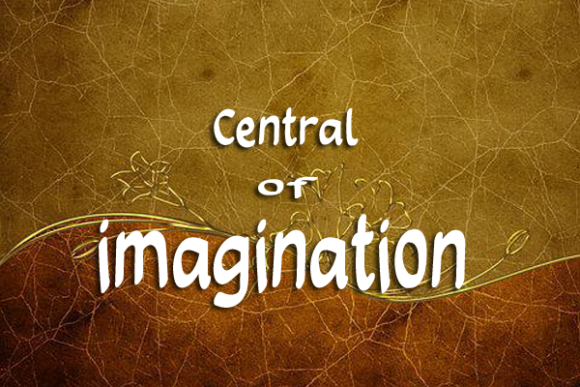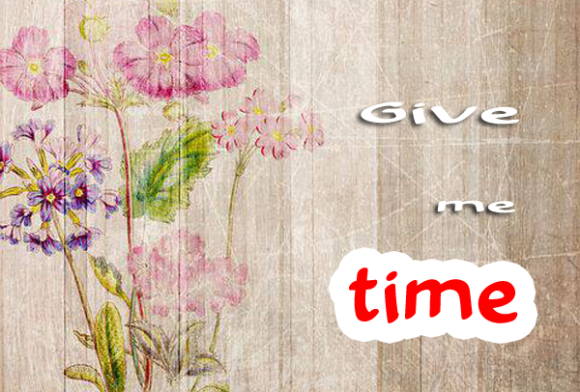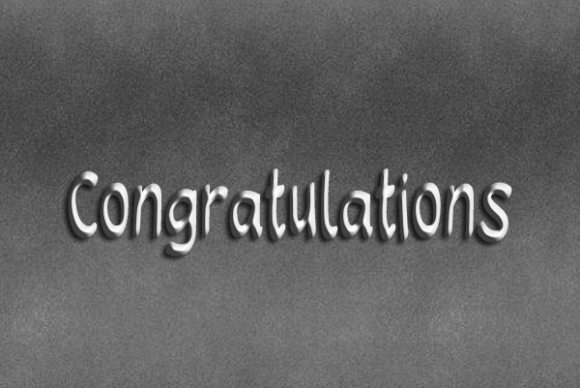
Casanova Font: Elevate Your Designs with Elegance and Fun
Are you on the lookout for a font that combines elegance with a playful twist? Look no further than the Casanova Font! This display font is designed to bring a touch of sophistication and whimsy to your creative projects. With its well-rounded characters and neat style, Casanova is the perfect choice for designers and crafters seeking to make their ideas come alive.
The Characteristics of Casanova Font
Casanova Font boasts a unique blend of elegance and playfulness, making it an excellent addition to any designer’s toolkit. Some of its key features include:
- Well-rounded characters: Each letter in the Casanova Font is carefully crafted with smooth, rounded edges, giving it a friendly and approachable feel.
- Neat style: The font’s neat and clean lines ensure that it remains highly legible, even at larger sizes, making it perfect for headings and titles.
- Elegant and fun: Casanova strikes the perfect balance between sophistication and playfulness, allowing designers to add a touch of personality to their work.
Uses for Casanova Font
The versatility of Casanova Font makes it suitable for a wide range of creative projects. Here are some ideas to get you started:
- Logos and branding: Use Casanova to create a memorable and stylish logo that reflects your brand’s personality.
- Posters and flyers: Add a touch of elegance and fun to your promotional materials with Casanova’s unique charm.
- Wedding and event invitations: Make your special day even more memorable with beautifully designed invitations featuring the Casanova Font.
- Social media graphics: Stand out on social media with eye-catching graphics and headings created using Casanova.
Tips for Using Casanova Font Effectively
To get the most out of Casanova Font, keep the following tips in mind:
- Experiment with sizes: Casanova looks great at a range of sizes, from large headings to smaller body text. Don’t be afraid to experiment and find the perfect size for your project.
- Pair it with other fonts: Combine Casanova with complementary fonts to create visually appealing contrast and add depth to your design.
- Play with colors: Casanova Font looks great in a variety of colors. Try experimenting with different hues and shades to find the perfect match for your design.
Why Choose Casanova Font?
With so many fonts to choose from, why should you opt for Casanova? Here are just a few reasons:
- Unique style: Casanova’s distinctive blend of elegance and playfulness sets it apart from other fonts on the market.
- Highly versatile: Whether you’re working on a logo, poster, or social media graphic, Casanova Font is the perfect choice.
In conclusion, Casanova Font is a fun and elegant display font that’s perfect for designers and crafters looking to add a touch of sophistication and whimsy to their creative projects. With its well-rounded characters, neat style, and highly versatile design, Casanova is sure to become a staple in your font collection. So why wait? Download Casanova Font today and watch your designs come alive!